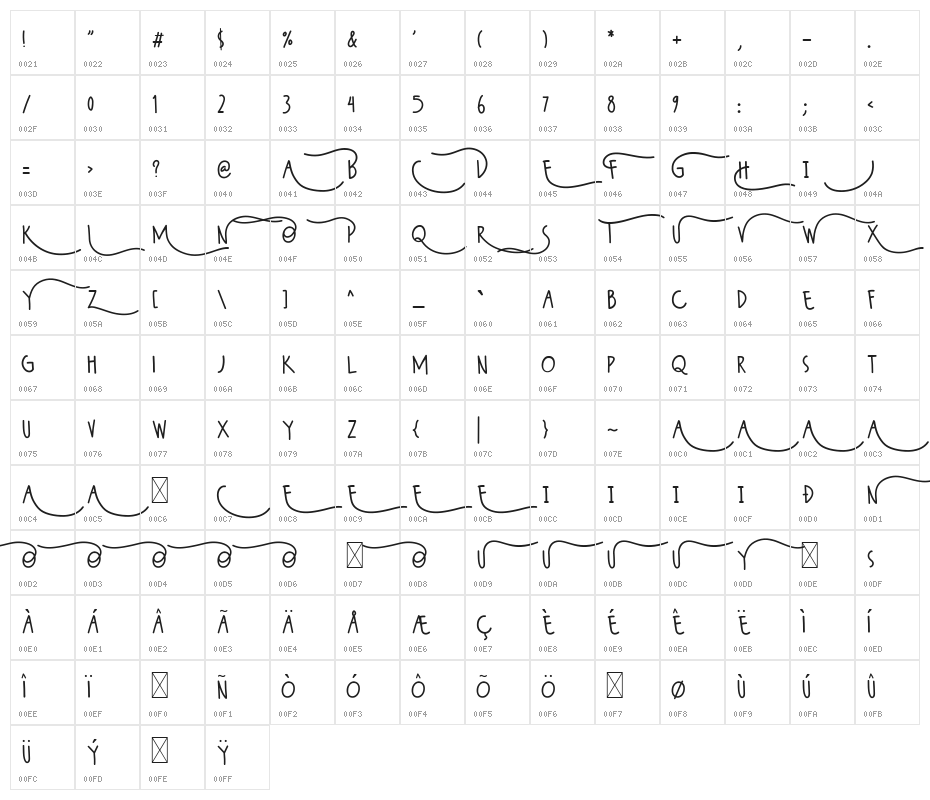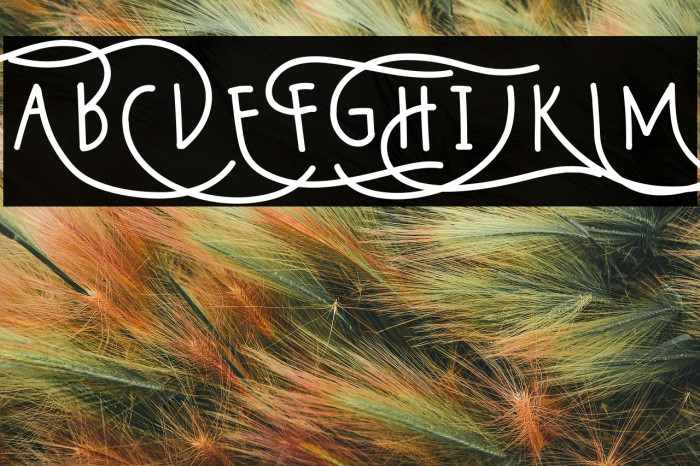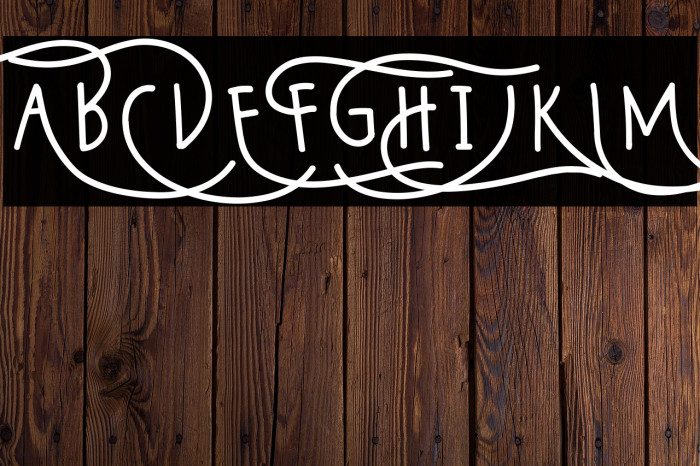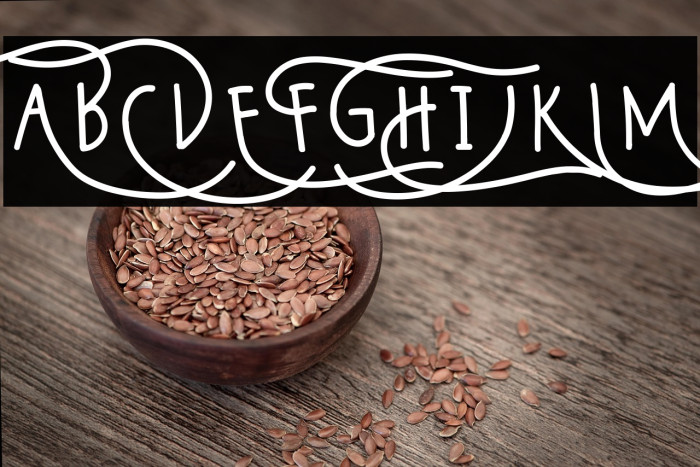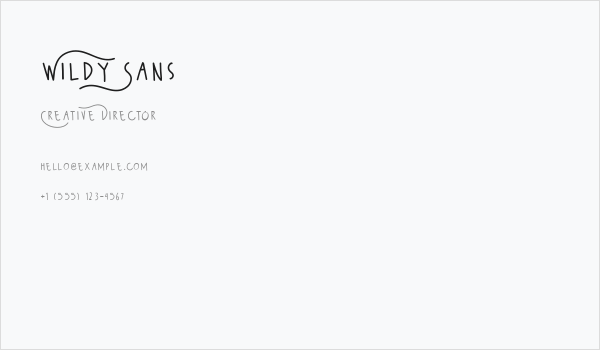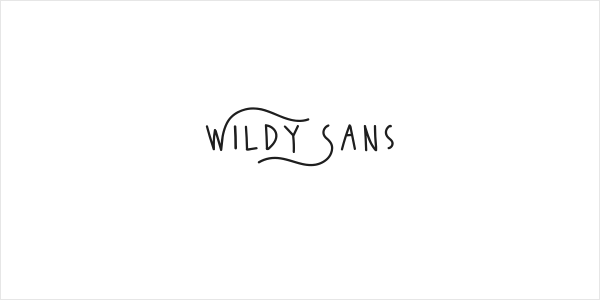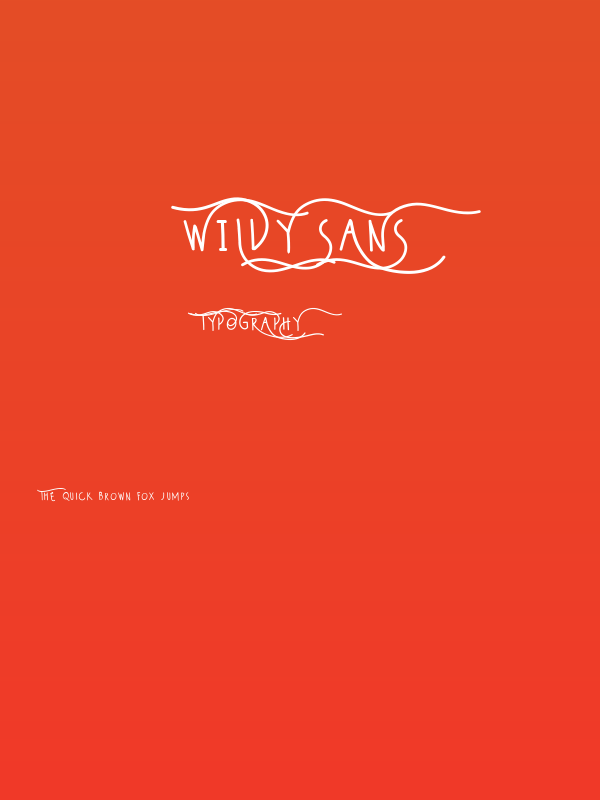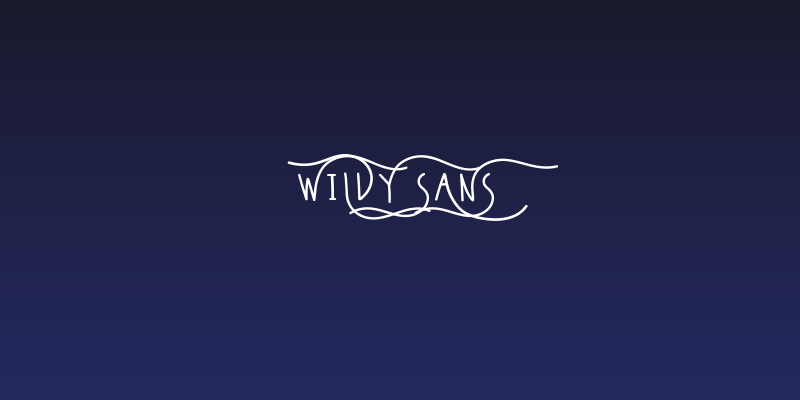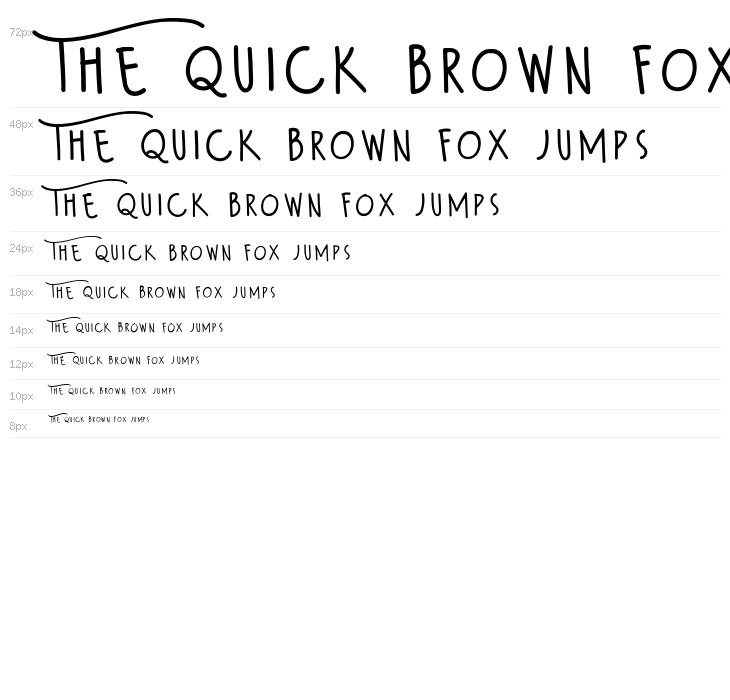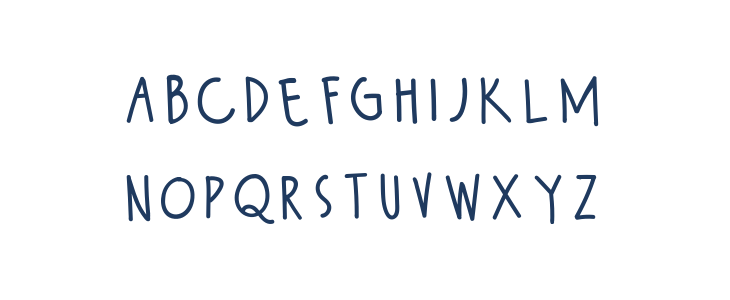
Wildy Sans Font
Wildy Sans Description
This font features a playful and whimsical design, characterized by its hand-drawn appearance and irregular strokes. The uppercase letters are adorned with decorative swirls that add a unique flair, while the lowercase letters maintain a more straightforward, yet still quirky style. The numerals and special characters follow the same playful theme, making the font suitable for creative and informal projects. The overall look is casual and artistic, perfect for designs that require a touch of personality and creativity.
| Proposed Projects | Ideal for children's book covers, playful branding, greeting cards, and creative posters. |